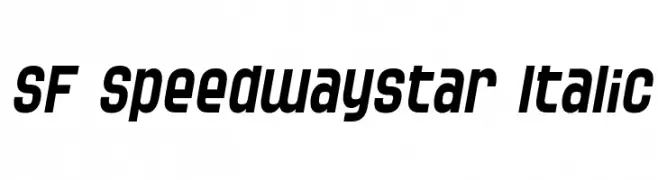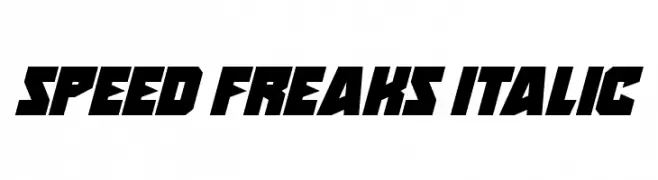
A bold, two-tone font with a dynamic, striped design for a sense of speed.
A bold, geometric font with a halftone effect, evoking speed and motion.
A bold, italicized font with a two-tone effect and dynamic, speedy design.
A bold, italicized font with a striped, gradient design conveying speed and modernity.
A dynamic, gradient-effect font with a bold, italicized style conveying speed and motion.
A bold, condensed, and italicized font with a dynamic, speedy appearance.
A bold, striped font with a dynamic, high-speed aesthetic.
A bold, dynamic font with a halftone effect and slanted characters, exuding speed and energy.
A bold, shadowed font with a dynamic, speedy appearance.
A bold, dynamic font with horizontal lines creating a sense of speed and movement.
A bold, angular font with a dynamic, forward-leaning design.
Comic-style speech and thought bubble dingbats in various outlines and fills.
A dynamic, italicized font with a modern, speedy aesthetic.
A bold, angular font with a futuristic and dynamic design, perfect for conveying speed and motion.
A bold, italicized font with dynamic slashes, conveying speed and energy.
A dynamic, italicized font with sharp, angular cuts, conveying speed and energy.
A bold, angular font with slanted lines conveying speed and movement.
A playful, hand-drawn font with irregular strokes and a casual, artistic style.
A playful, eye-catching font with cartoonish eyes on bold, rounded letters.
A decorative Celtic-inspired italic font with intricate knot patterns.
A decorative font with Celtic-inspired interwoven patterns and bold, ornate letters.
An ornate, Celtic-inspired font with intricate knotwork and decorative outlines.
A bold, distressed font with a cracked, industrial appearance.
A dynamic, oblique font with bold, condensed characters and a modern style.
A bold, dynamic font with thick strokes and rounded edges, ideal for impactful displays.
A dynamic, condensed, and oblique font with a modern, energetic style.
A bold, oblique font with a dynamic, modern style.
A bold, slanted font with a dynamic and sporty style.
A bold, geometric font with a futuristic and digital aesthetic.